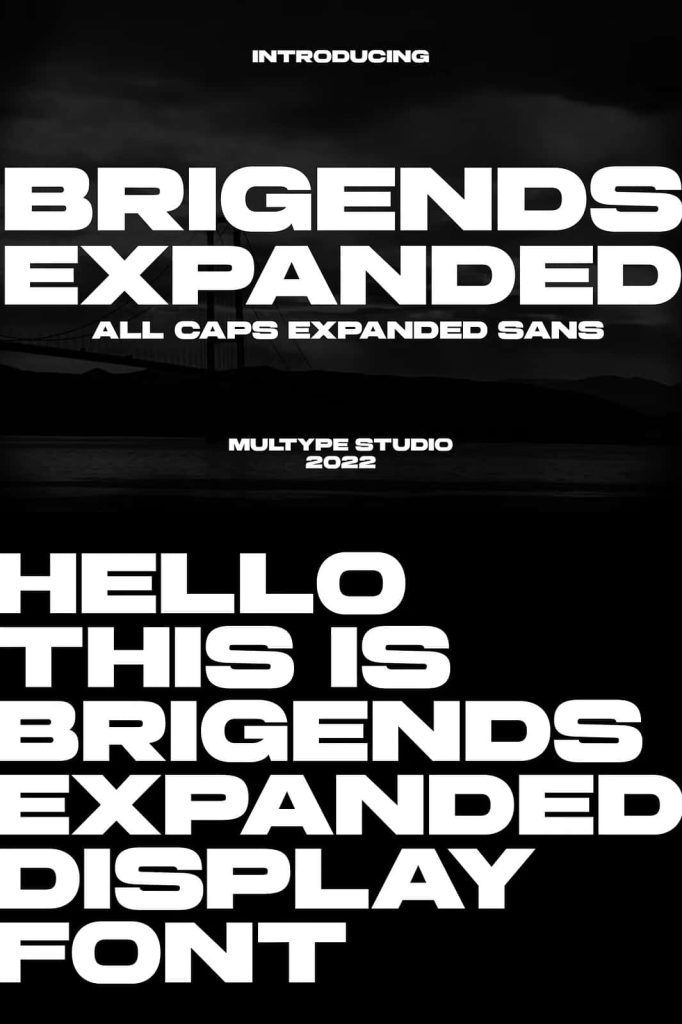
Brigends Expanded: A Bold Sans Serif Font for Strong, Modern Design
Brigends Expanded is a bold sans serif font that commands attention with its wide structure and confident character. Designed to deliver a modern and powerful impression, this typeface helps you create visuals that stand out in both digital and print formats. Its expanded letterforms enhance readability while adding a distinctive personality, making it a reliable choice for designers who want to communicate strength, clarity, and style.
Modern Design with a Strong Visual Impact
Brigends Expanded embraces a clean and contemporary aesthetic. Its bold strokes and wide proportions create a commanding presence that works perfectly for high-impact design projects. Whether you are crafting a headline or building a brand identity, this font ensures your message is clear and visually striking.
The expanded style gives each letter more breathing room, allowing your text to feel open and balanced. This design approach not only improves legibility but also reinforces a sense of professionalism and confidence. As a result, Brigends Expanded becomes an ideal solution for projects that demand both readability and bold visual appeal.
Why Choose Brigends Expanded
- Bold and modern sans serif style
- Expanded letterforms for better visibility
- Strong presence for impactful designs
- Versatile across print and digital media
Perfect for Branding and Logo Design
If you are working on branding projects, Brigends Expanded offers the strength and clarity needed to create memorable identities. Its bold structure helps logos stand out across various platforms, from business cards to large-scale signage. The font’s modern style also aligns well with contemporary branding trends, making it suitable for startups, creative agencies, and established companies alike.
You can use Brigends Expanded to design logos that feel solid and trustworthy. Its geometric influence and strong lines create a sense of stability, which is essential for building brand recognition and credibility.
Applications in Branding
- Logo design for companies and products
- Corporate branding materials
- Packaging and product labels
- Marketing campaigns and advertisements
Ideal for Headlines, Posters, and Promotions
Brigends Expanded excels in large-scale typography. Its bold weight ensures that headlines capture attention instantly, whether used in posters, billboards, or social media graphics. The font’s expanded form enhances visibility, making it highly effective for promotional materials where readability from a distance is crucial.
Designers can use this font to create eye-catching titles that communicate urgency and importance. From event posters to advertising banners, Brigends Expanded delivers a strong visual message that resonates with audiences.
Best Use Cases
- Posters and flyers
- Advertising and promotional graphics
- Social media content
- Event announcements
Versatile for Editorial and Digital Layouts
Beyond branding and promotions, Brigends Expanded works exceptionally well in editorial and digital design. It adds structure and hierarchy to magazine layouts, book covers, and website interfaces. The font’s bold presence makes it ideal for titles, section headers, and key highlights within your content.
When used in web design, Brigends Expanded enhances user experience by making important information easy to identify. Its clean and modern look also complements minimalist layouts, helping you achieve a polished and professional design.
Recommended Design Uses
- Book covers and magazine layouts
- Website headers and UI design
- Movie titles and cinematic graphics
- Creative portfolio presentations
Elevate Your Design with Confidence
Brigends Expanded is more than just a font; it is a design tool that empowers you to create bold and memorable visuals. Its strong, modern appearance ensures your work captures attention while maintaining clarity and professionalism. Whether you are designing for print or digital platforms, this typeface adapts seamlessly to your creative needs.
Choose Brigends Expanded when you want your designs to speak with confidence, strength, and modern style. It delivers the visual impact you need to make your projects stand out in a competitive creative landscape.